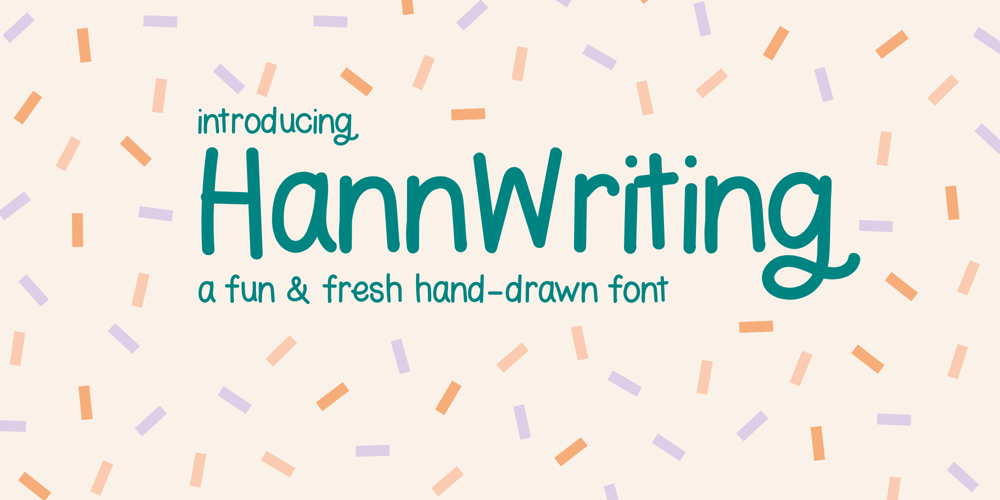
Hann Writing
Hann Writing font
Hann Writing Font Family was designed by Hann Welsh and published by Hann Welsh. Hann Writing contains 1 styles and family package options. “Oh my goodness, is that your handwriting? It looks like a font!” HannWriting is a hand-drawn casual font based on the designer’s own unique handwriting. It is perfect for achieving an organic look that does not sacrifice neatness. HannWriting is great for use in any project, from the home to the classroom to the great outdoors! This font includes basic and advanced Latin characters with multiple glyph options for some letters.